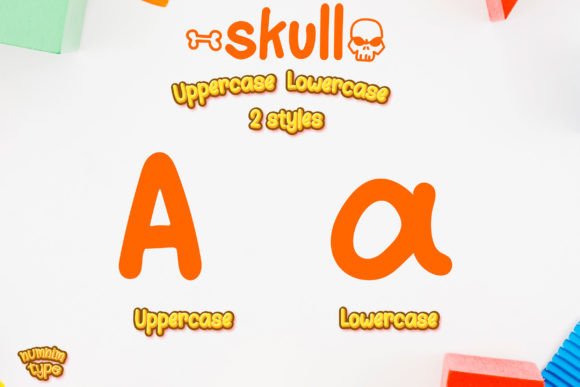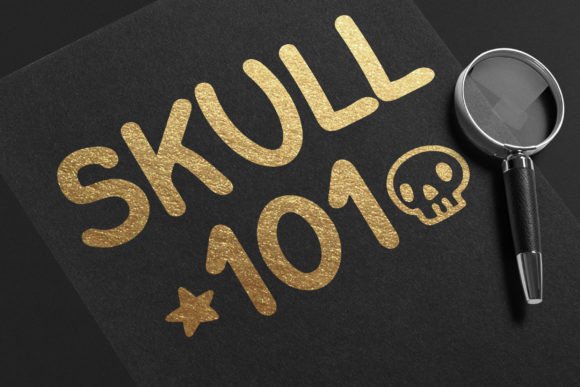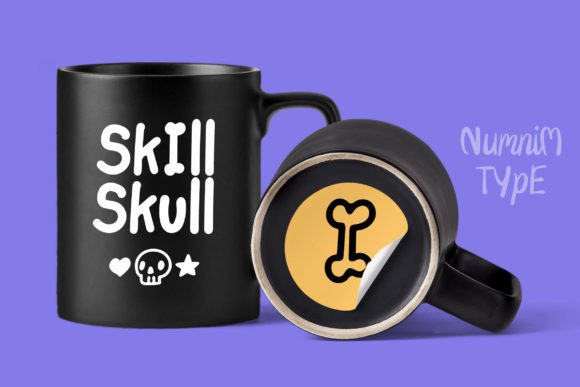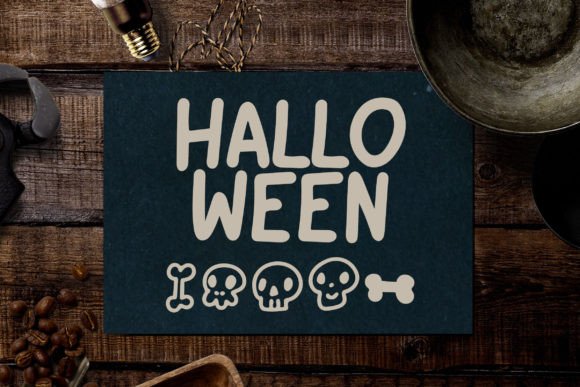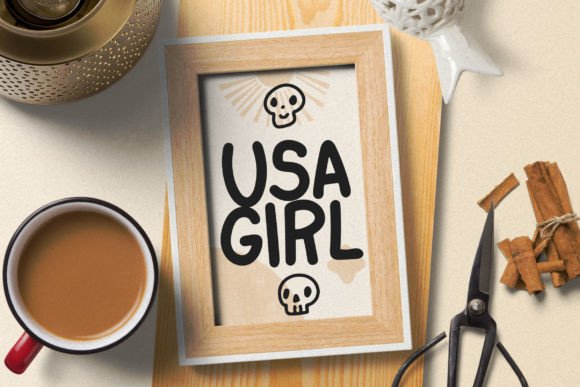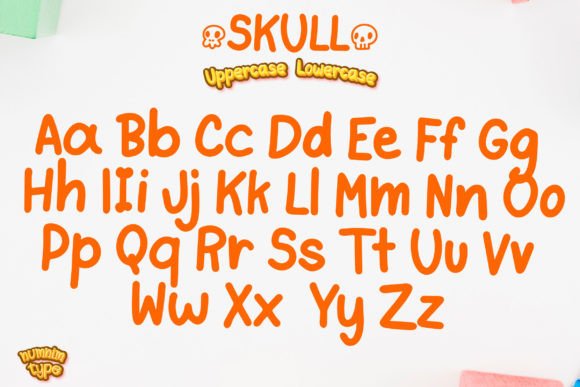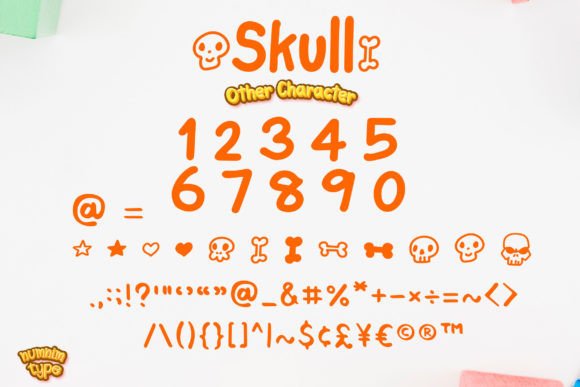
Skull Font
About Skull Font
“Skull” is a cute and uniquely crafted handwritten font that stands out with its fun and playful characters. This font is the perfect choice for various creative applications such as stickers, mugs, t-shirts, ornaments, Halloween event cards, and more. Its distinctive style adds a touch of creativity and playfulness to your design projects.
The charm of “Skull” lies in its ability to convey a sense of fun and uniqueness through its carefully crafted characters. Its handwritten style exudes a playful and lighthearted vibe, making it an excellent choice for designs that aim to engage and amuse.
Whether you’re creating stickers to decorate items, designing custom mugs or t-shirts, adding a playful touch to ornaments, or crafting cards for Halloween events, “Skull” is the font that can bring a sense of creativity and whimsy to your creative ideas.
In the world of design, standing out and creating memorable impressions is essential, and “Skull” excels in this regard. It ensures that your projects not only look visually appealing but also convey a feeling of fun and playfulness, leaving a lasting and entertaining impact on your audience.
Furthermore, the fact that “Skull” is PUA encoded means that you can easily access all glyphs and swashes, enhancing the versatility and creative potential of this font.
In summary, “Skull” is more than just a font; it’s a creative tool that adds a sense of fun and uniqueness to your work. Its playful characters and distinctive style make it suitable for a wide range of projects, allowing you to create designs that are not only visually captivating but also emotionally engaging and entertaining. Embrace “Skull” and let its creativity and playfulness enhance your creative endeavors, making them stand out with a touch of whimsy and charm.